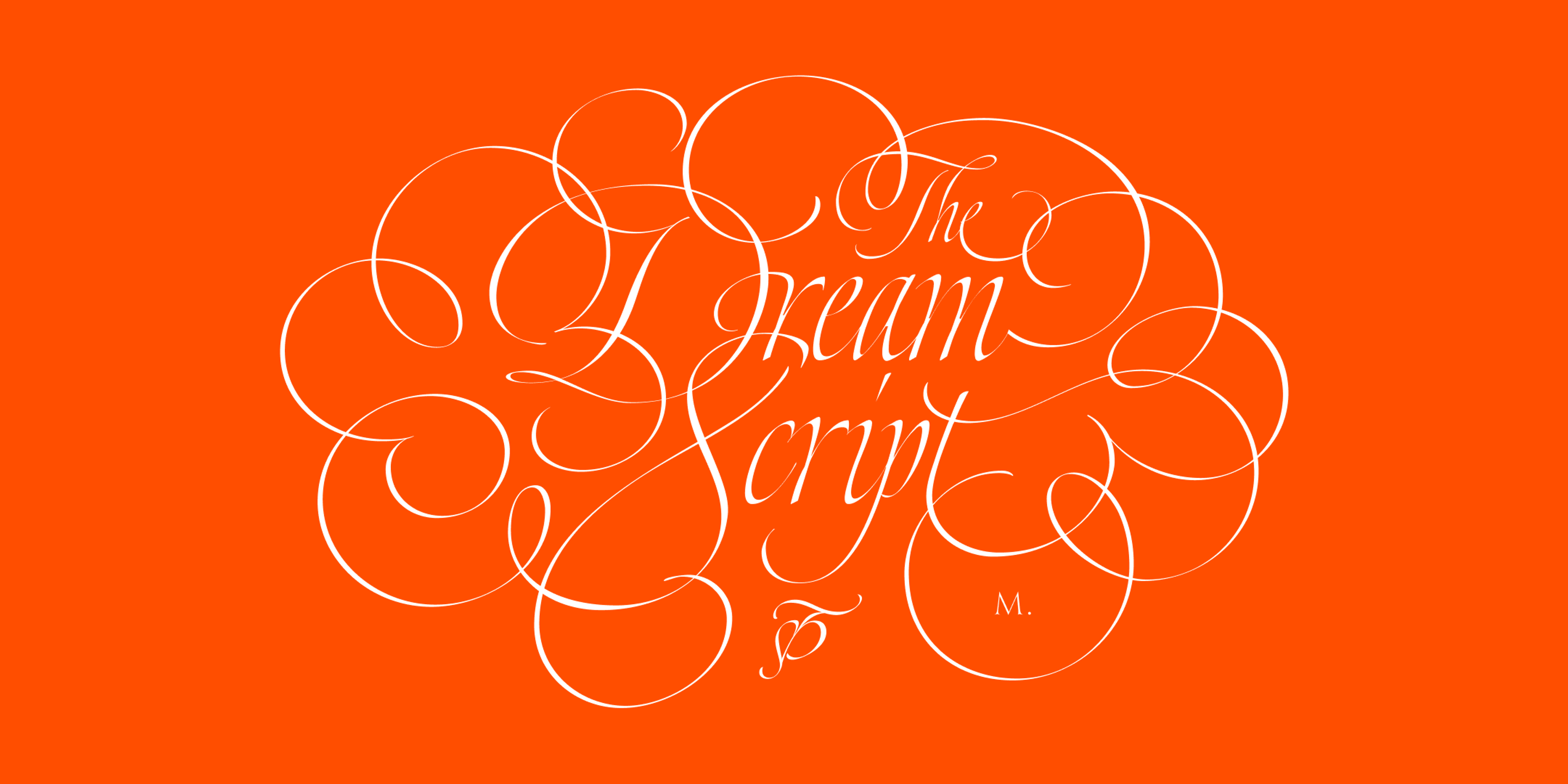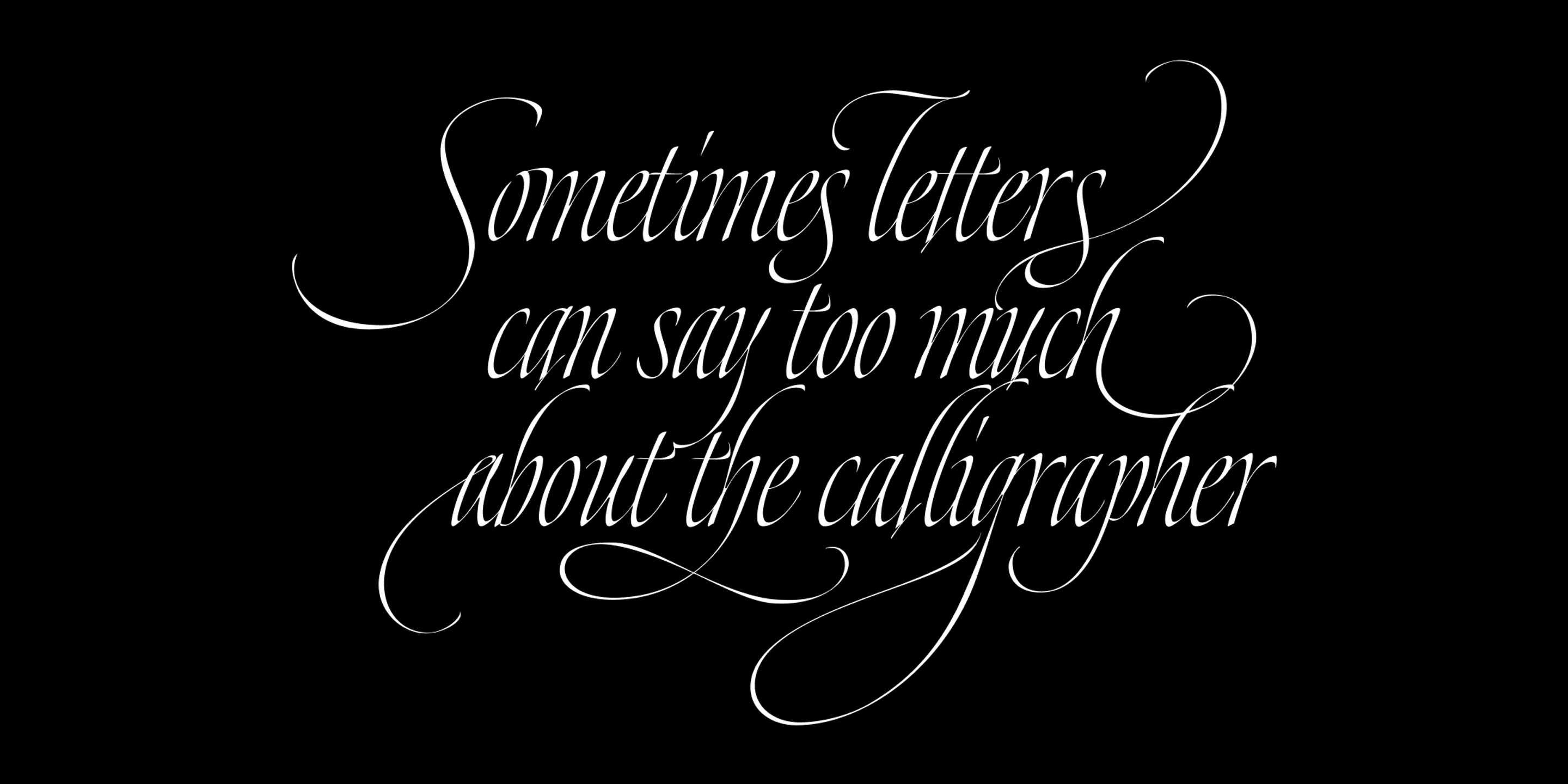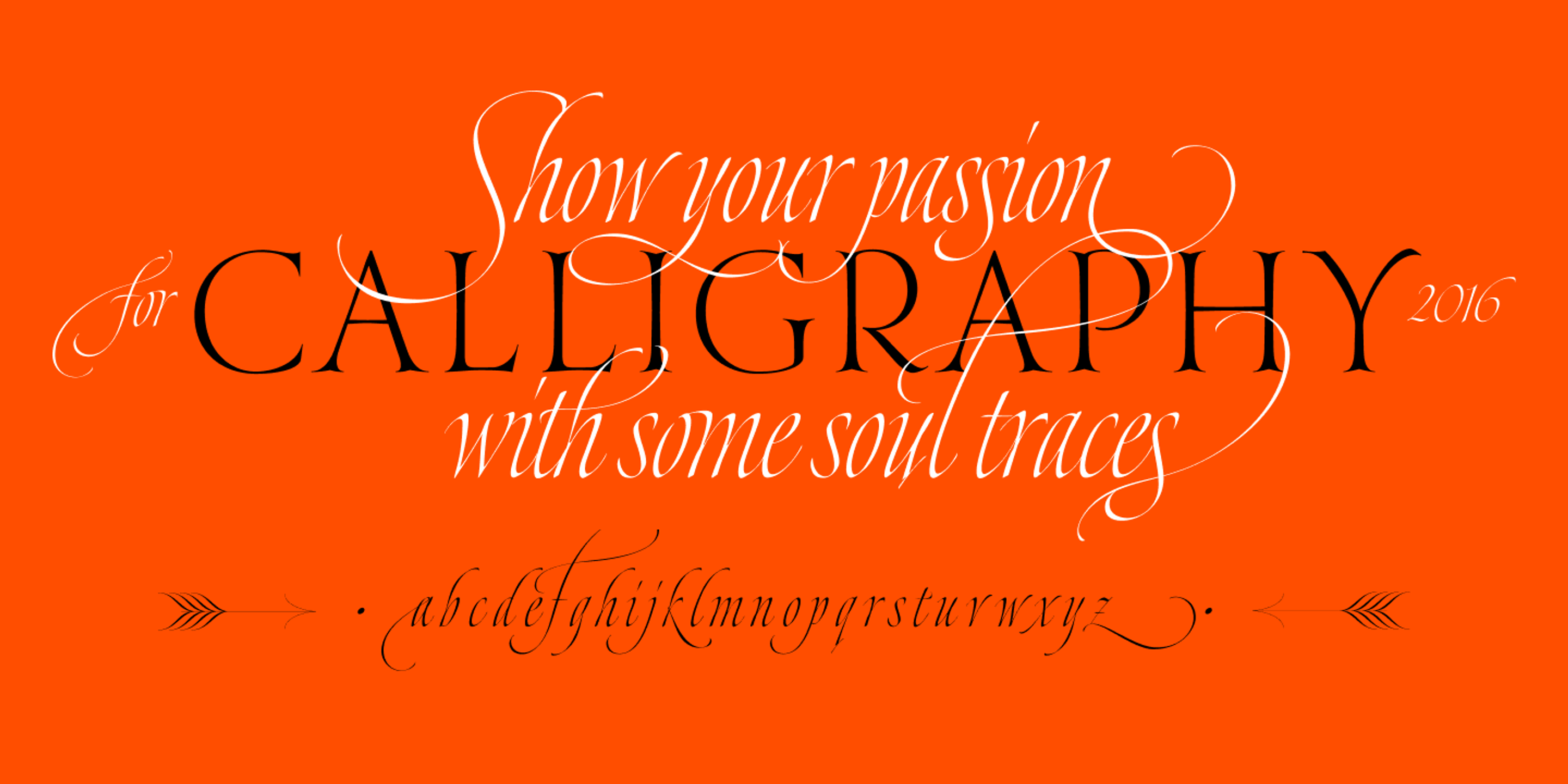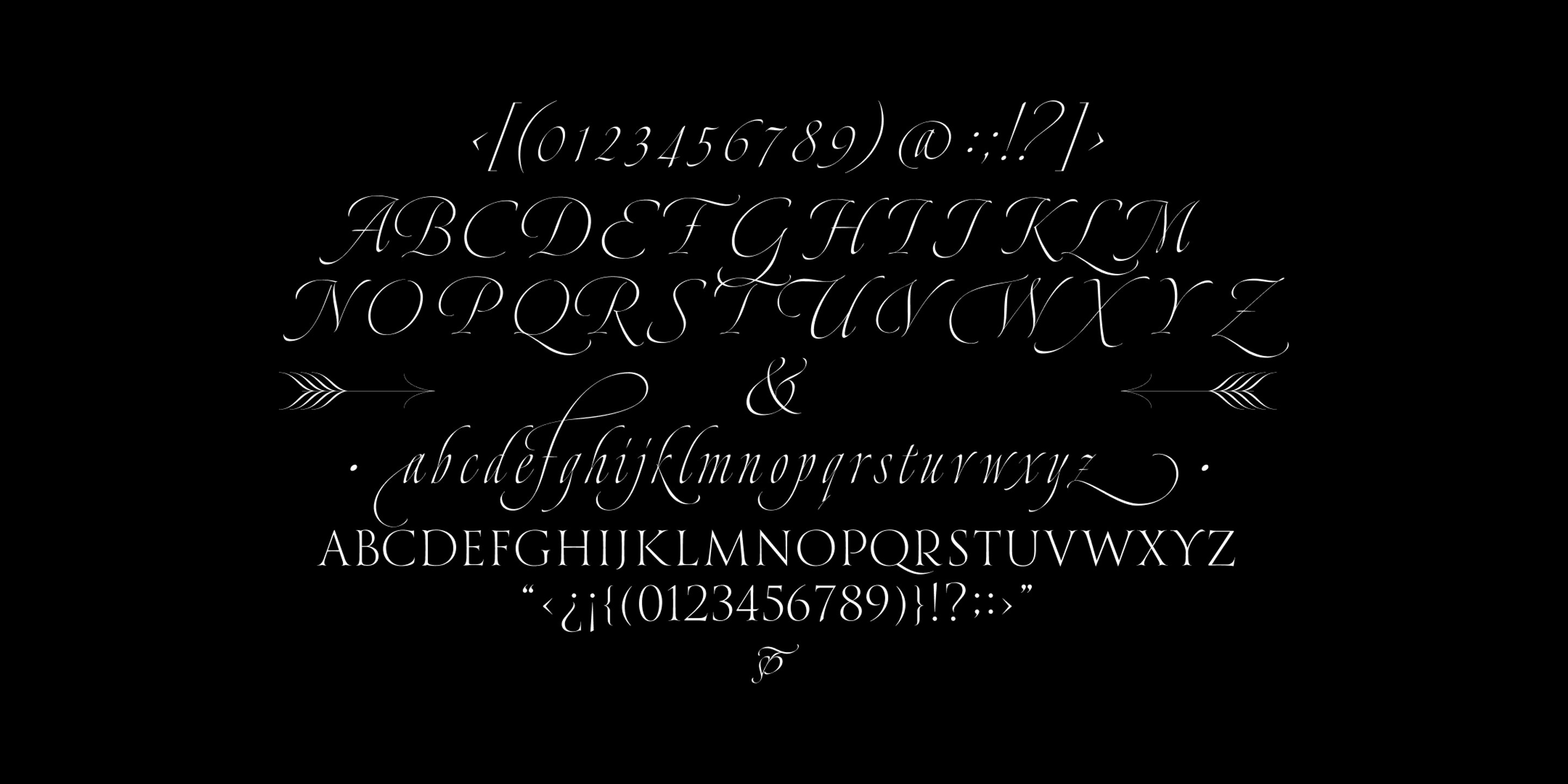
Dream Script font by Sproviero Type — the words “The Dream Script” in a flowing, high-contrast connected script, surrounded by elaborate calligraphic swashes, with a small “M.” below.
Dream Script font by Sproviero Type — the italic phrase “Sometimes letters can say too much about the calligrapher” in a high-contrast connected script with swash capitals and descenders
Dream Script font by Sproviero Type — the words “Show your passion for CALLIGRAPHY with some soul traces 2016” in a mix of upright serif and connected script, with a line of script lowercase letters and two decorative arrows.
Dream Script font by Sproviero Type — a display of italic script uppercase and lowercase letters, numbers, and symbols, an upright serif uppercase alphabet, and two decorative arrows pointing left and right
Dream Script Caps
Dream Script Regular
About the font
Dream Script Details
Dream Script results from a desire to design a chancery cursive full of life and expression. Max took inspiration from the works of master calligraphers such as Julian Waters, John Stevens, and Denis Brown — and has given designers a typeface that feels closer to calligraphy with every use. The magic is in the subtle details, such as the pen angle constantly changing to create an even but playful rhythm. Dream Caps, taking cues from the Trajan capitals, act as a beautiful foil for the script.
OpenType Features
• Common Ligatures
• Discretionary Ligatures
• Ornaments
• Stylistic Alternates
• Stylistic Sets
• Swashes
• Titling Capitals